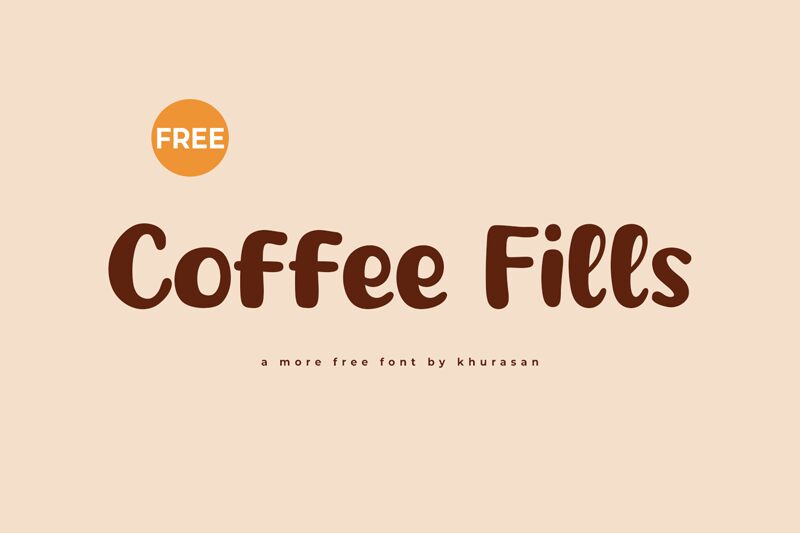
Coffee Fills
Unleash the whimsical charm of Coffee Fills, a bold and playful font crafted by designer Khurasan. This display-style typeface exudes a captivating cartoon-like aesthetic, with its rounded letterforms and dynamic strokes effortlessly evoking a sense of fun and lightheartedness. The font's bold weight and distinctive character shapes make it an eye-catching choice, perfect for adding a touch of playfulness to a wide range of design projects.
Versatile and engaging, Coffee Fills lends itself well to various applications, from children's books and party invitations to social media graphics and product packaging. Its whimsical charm and strong visual presence make it an ideal selection for branding, advertising, and creative endeavors seeking to capture a carefree, approachable atmosphere. Whether you're designing a vibrant logo, crafting engaging headlines, or bringing a touch of playfulness to your next project, the Coffee Fills font offers a delightful and memorable typographic solution.